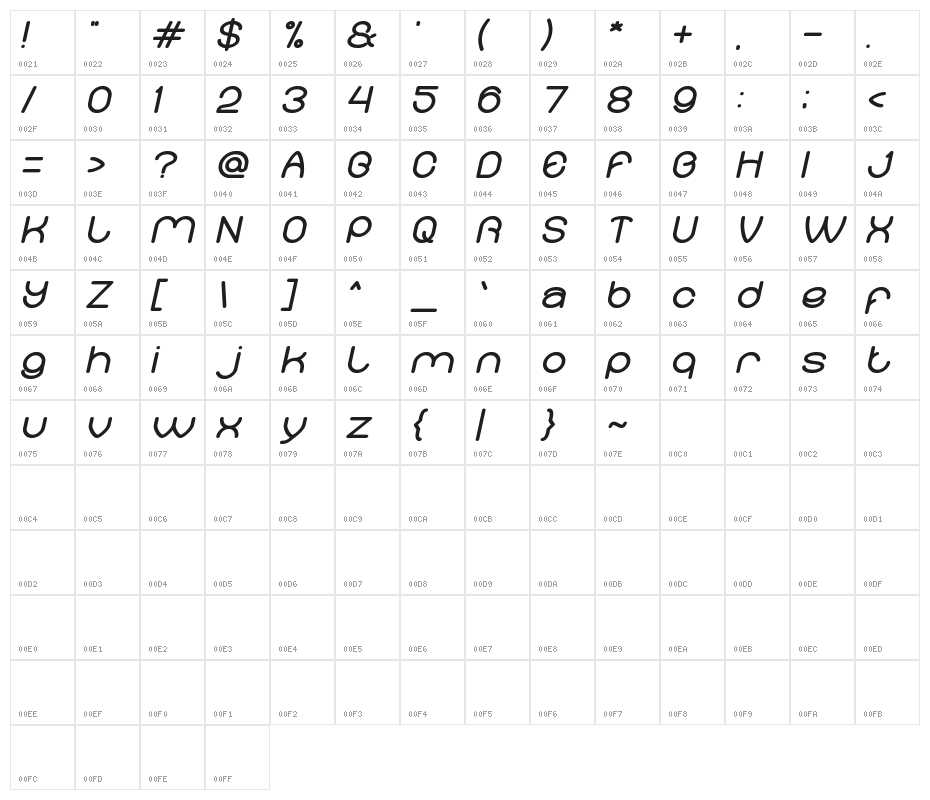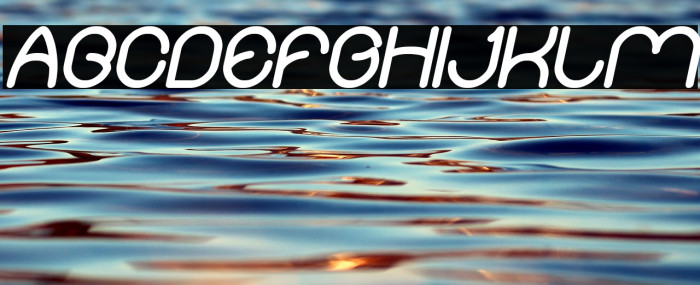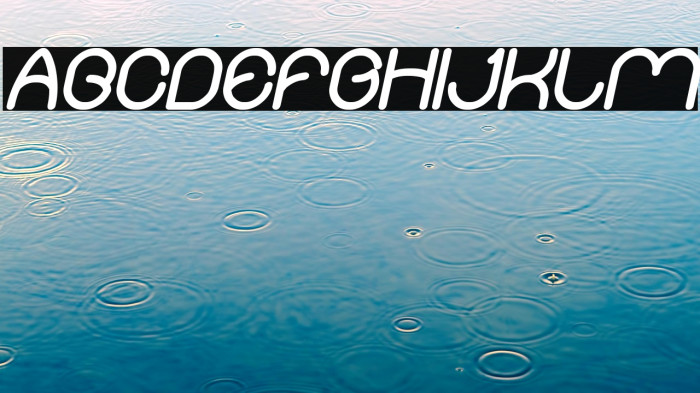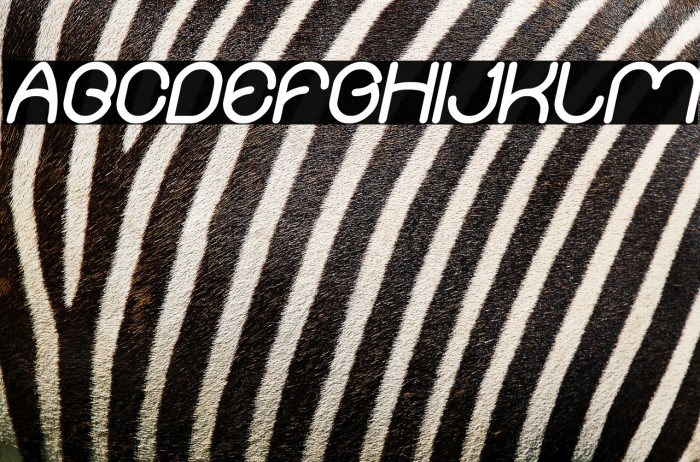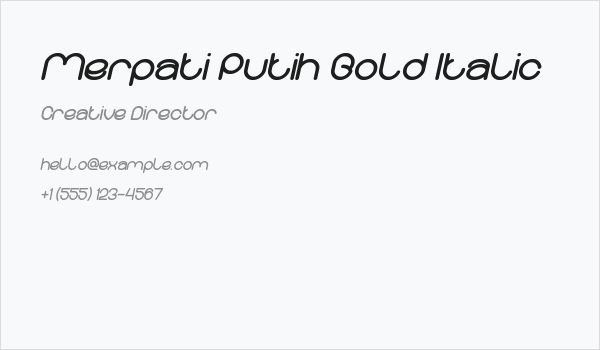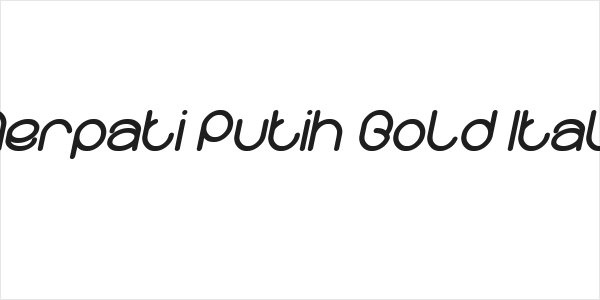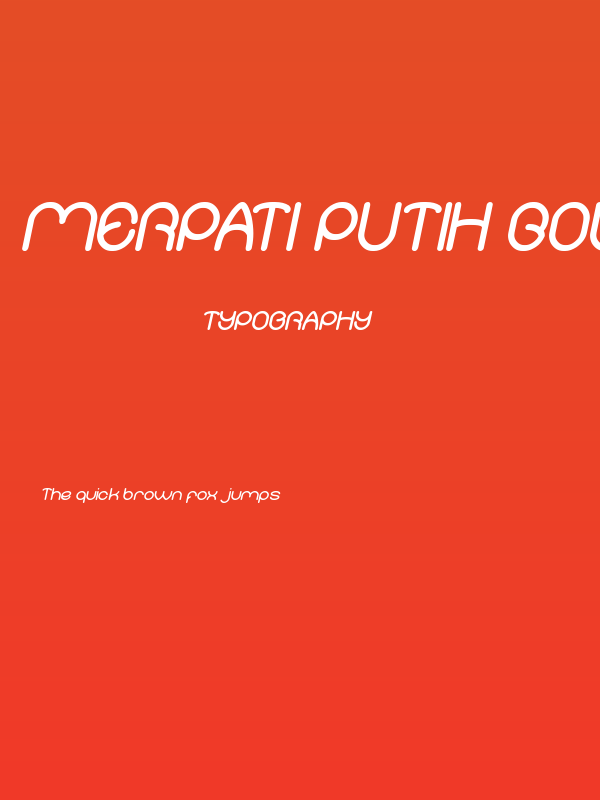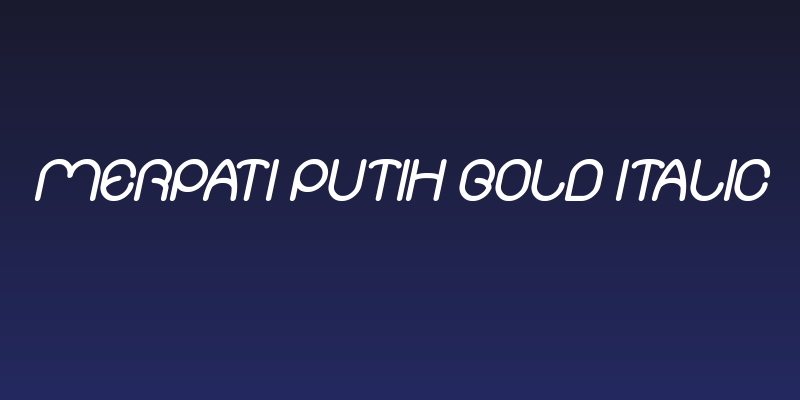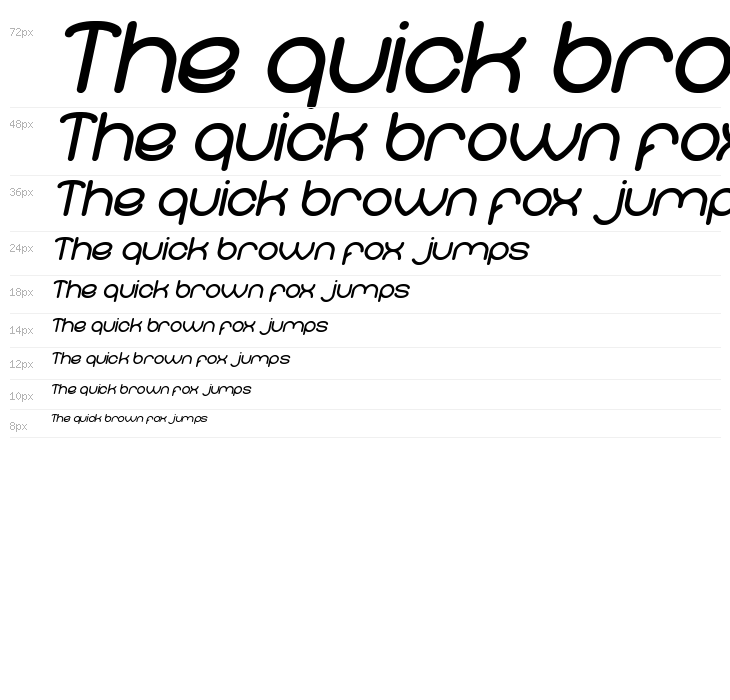
Merpati Putih Bold Italic Font
Merpati Putih Bold Italic Description
This font features a bold and italic style with a modern, flowing design. The characters are rounded and connected, giving it a smooth, continuous appearance. The uppercase and lowercase letters maintain a consistent style, with a slight slant that enhances its italic nature. The numbers and special characters are designed to match the overall aesthetic, ensuring uniformity across all glyphs. The font's boldness makes it stand out, while the italic slant adds a dynamic feel, making it suitable for creative and expressive projects.
Use CaseHeadlines, Logos, Creative design
Proposed ProjectsIdeal for branding, logos, headlines, and creative design projects that require a bold and expressive touch.